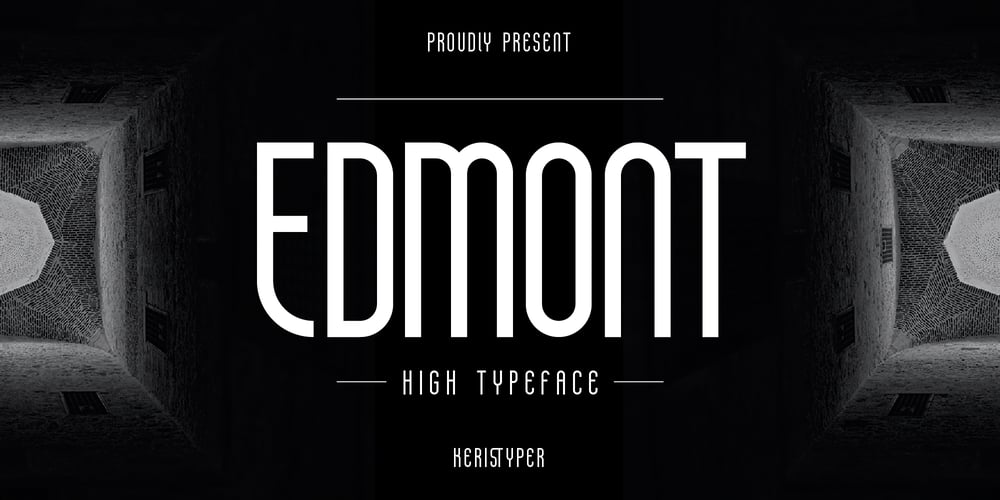
Edmont
Edmont font
Edmont Font Family was designed by Tezar Tantular and published by Keristyper Studio. Edmont contains 1 styles and family package options. Introducing Edmont is a vertical high and tall typeface that’s great for headlines. This font is good for logo design, Social media, Movie Titles, Books Titles, short text even long text letters, and good for your secondary text font with sans or serif.Featured: Standard Uppercase & Lowercase Numeral & Punctuation Multilingual : ä ö ü Ä Ö Ü ß ¿ ¡ Alternate & Ligature PUA encoded We recommend programs that support the OpenType feature and the Glyphs panel such as Adobe applications or Corel Draw. so you can use all the variations of the glyphs.Hope you enjoy our fonts!